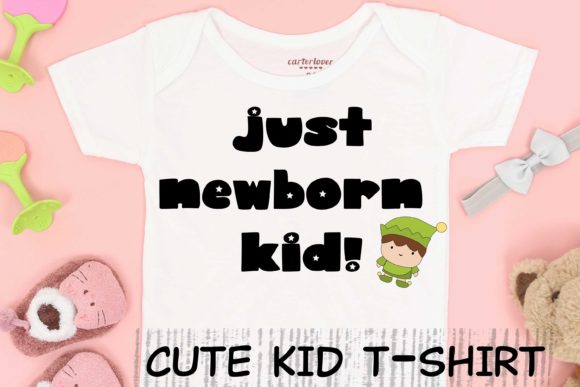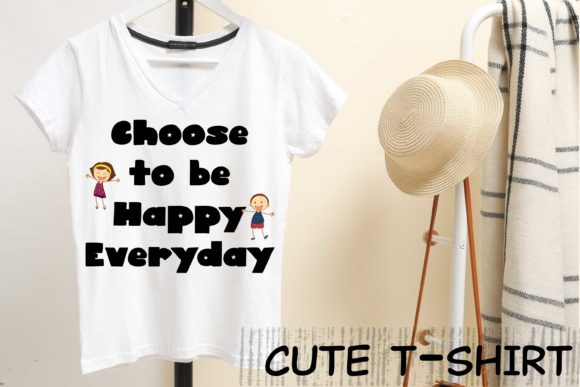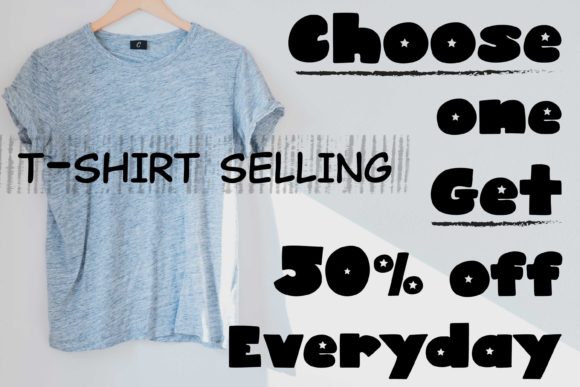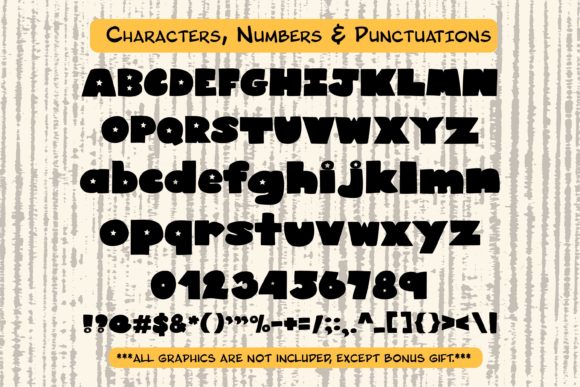
Introduction to Blacky Star Font
Blacky Star is a cute, thick lettered and fun display font.
It will look stunning on any poster flyer or print Use this font for your designs and explore its endless possibilities.
Key Features of Blacky Star Font